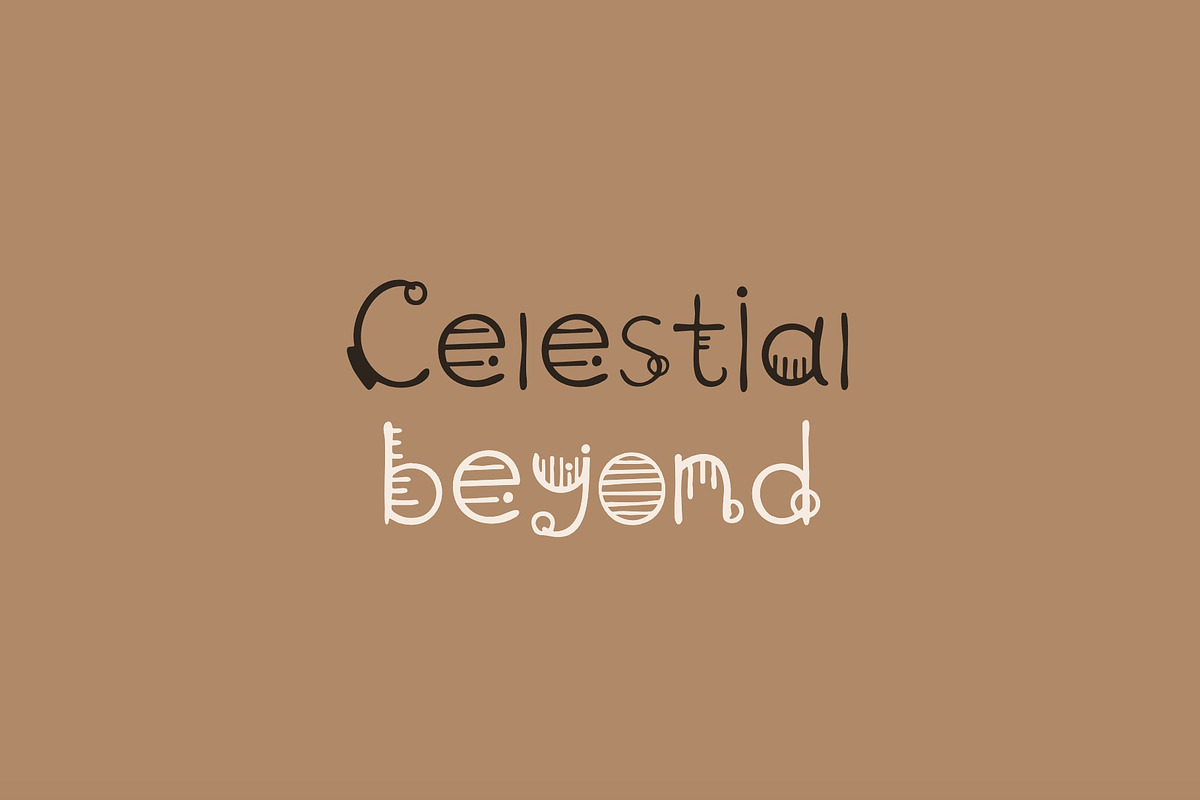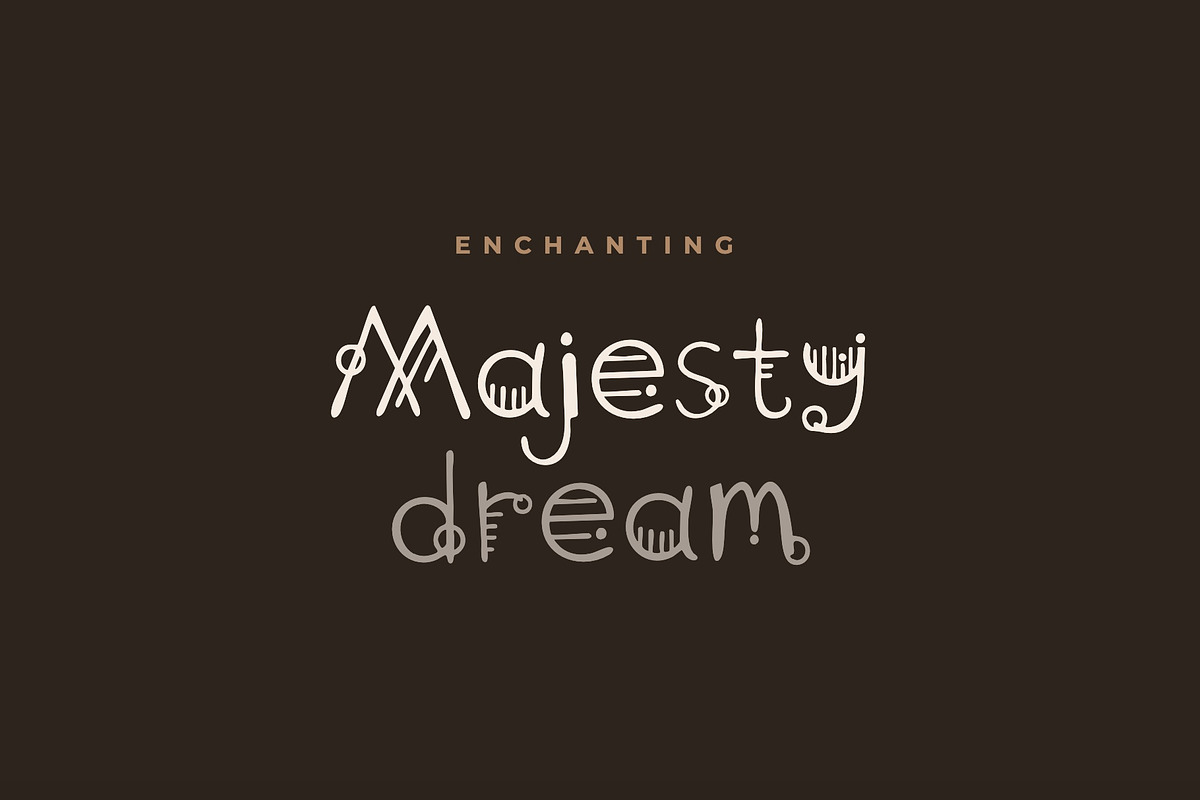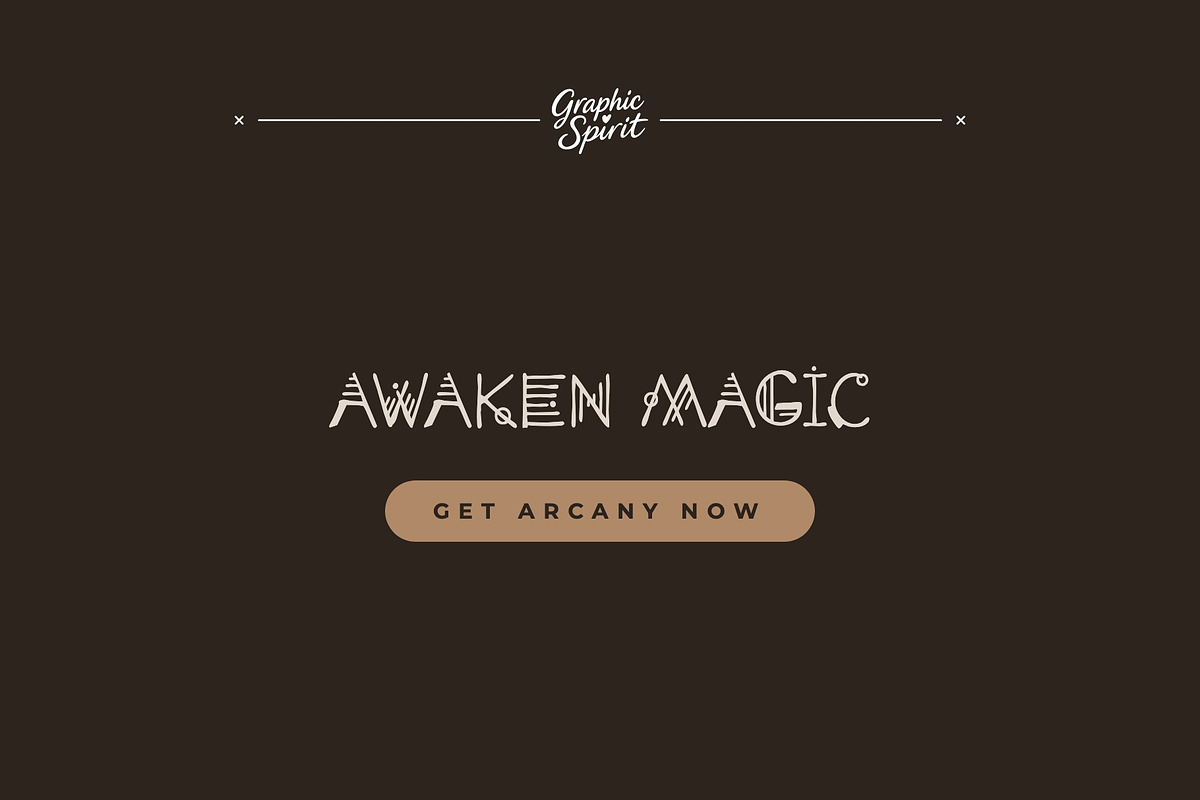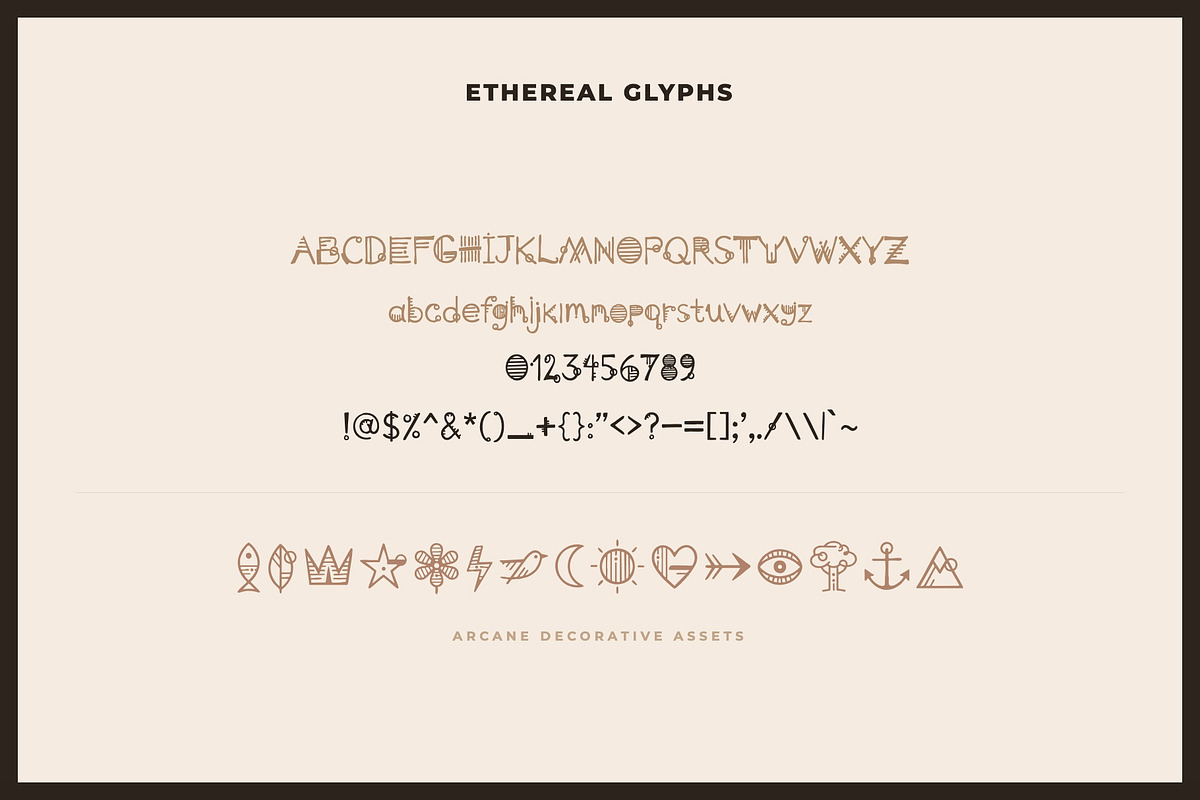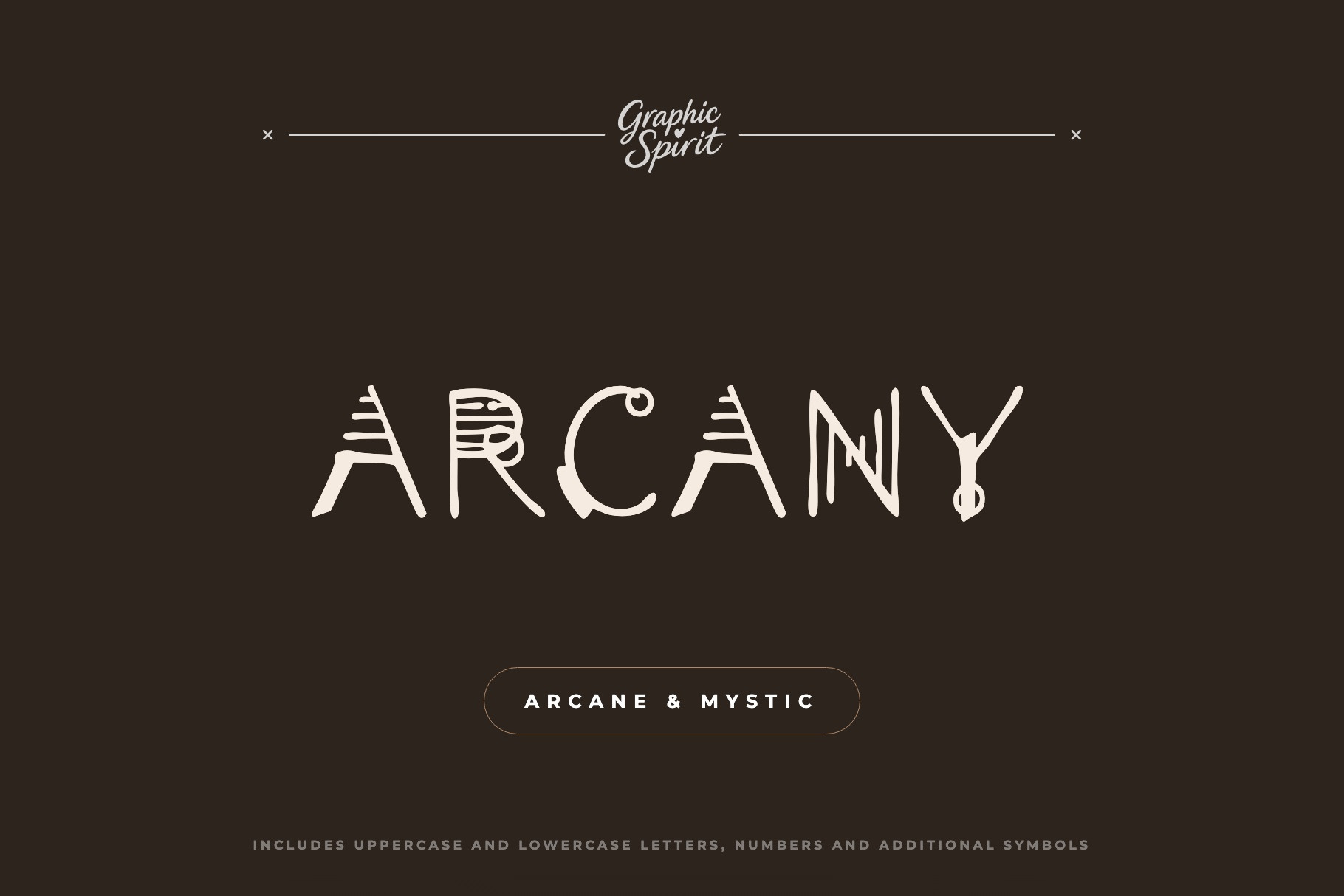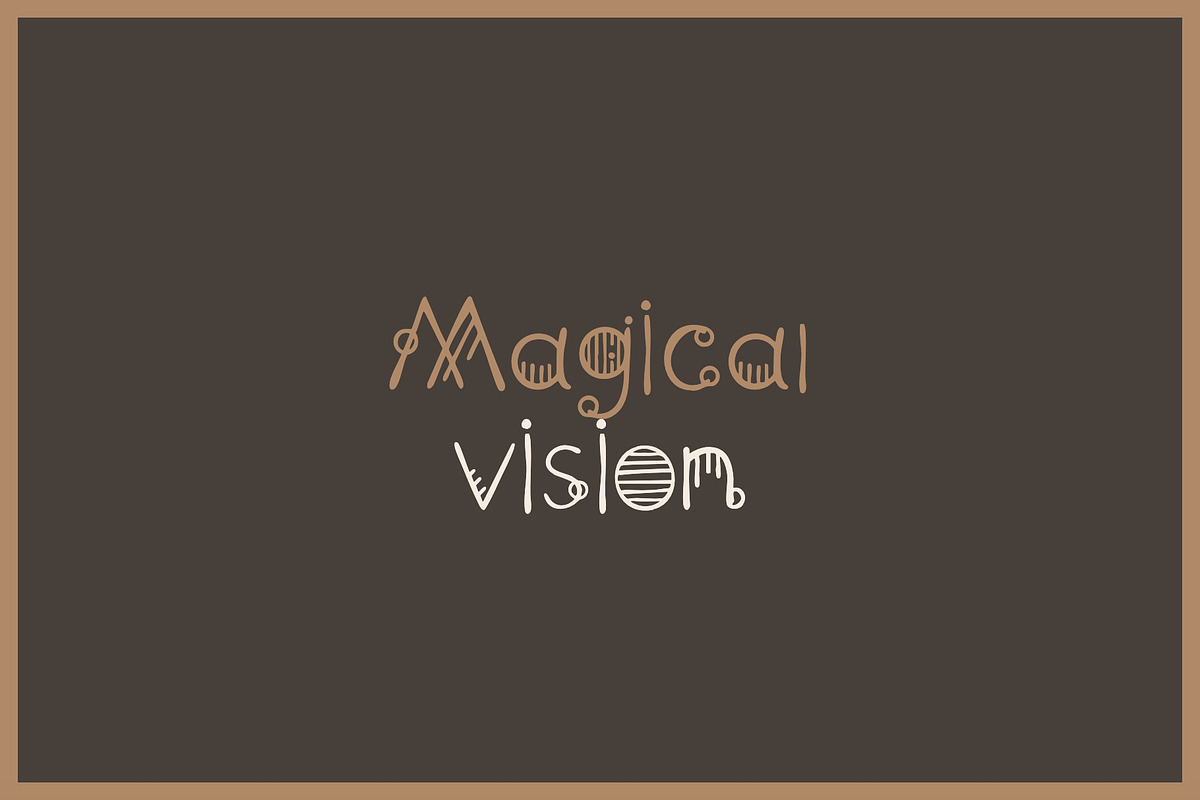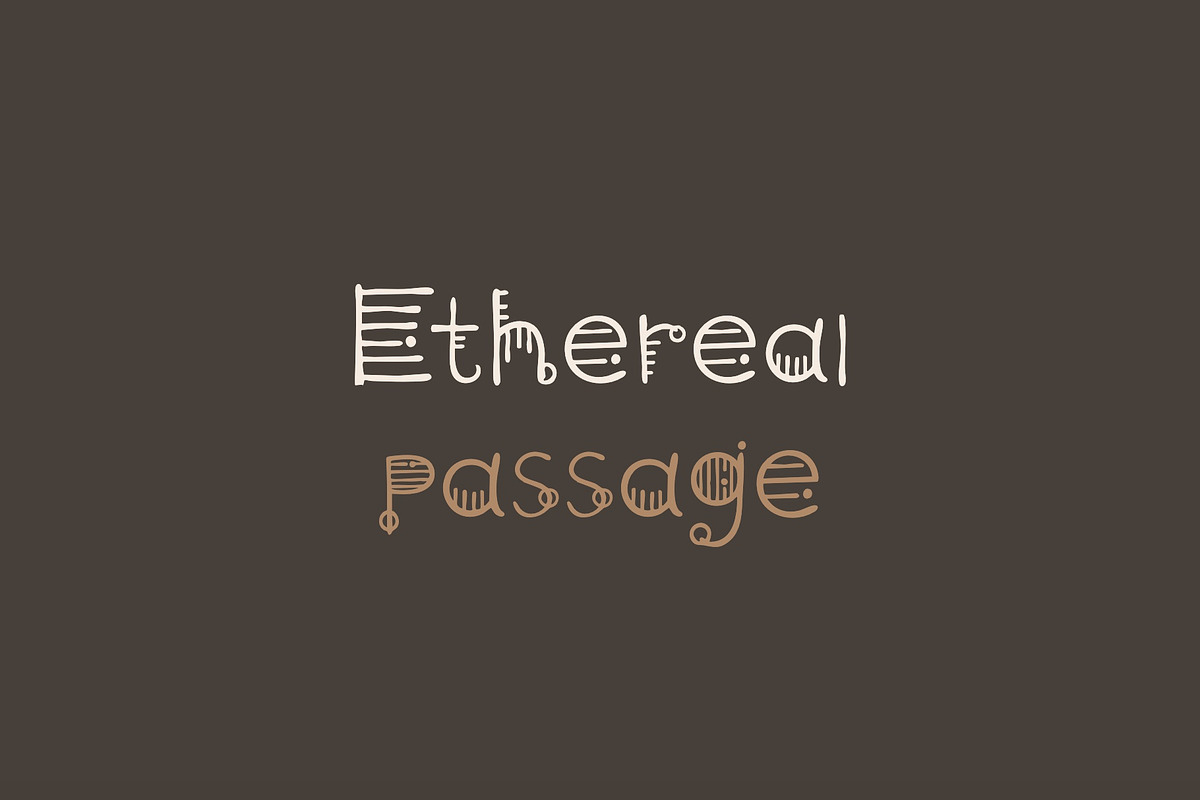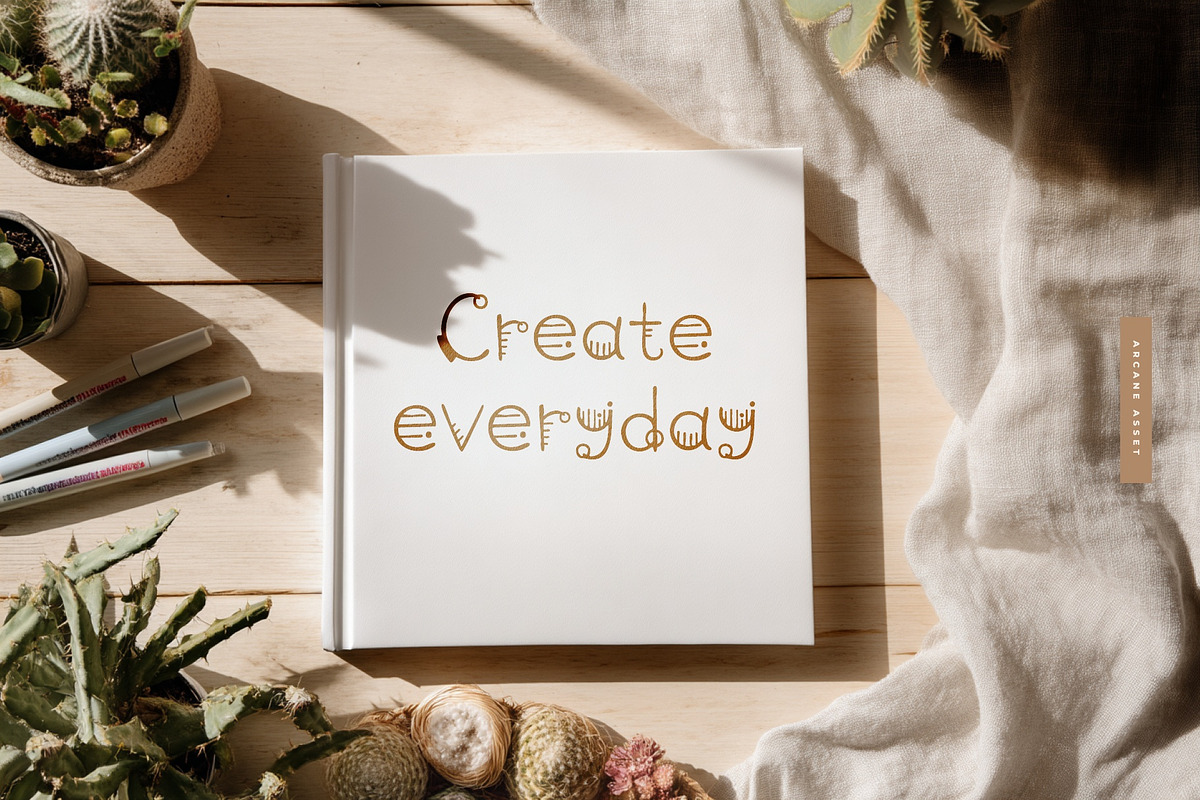
Arcany Decorative Font
Arcany is a cutting-edge geometric display font that embodies the sleek aesthetics of tomorrow. Characterized by its sharp angles and minimalist tech-inspired letterforms, this typeface is the ultimate tool for forward-thinking brands and digital designers.
Designed for maximum impact and clarity, Arcany excels in high-tech logo design, futuristic editorial layouts, and striking web interfaces. Its precise, structural design gives any project an instant upgrade in sophistication and digital flair. Elevate your creative toolkit with this highly versatile, modern font that perfectly balances geometric precision with a bold futuristic vision.